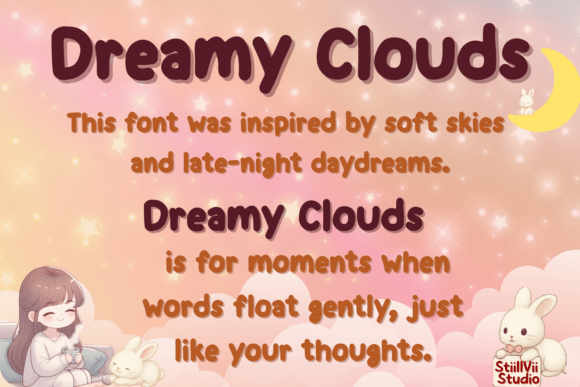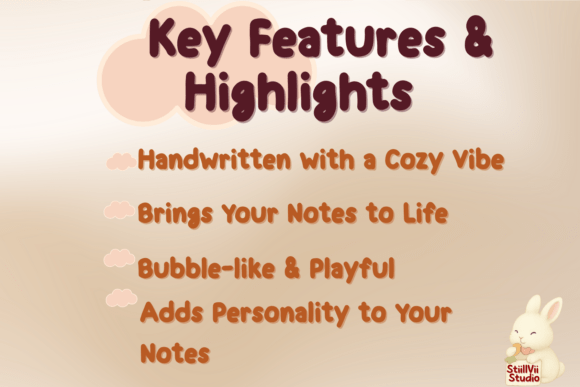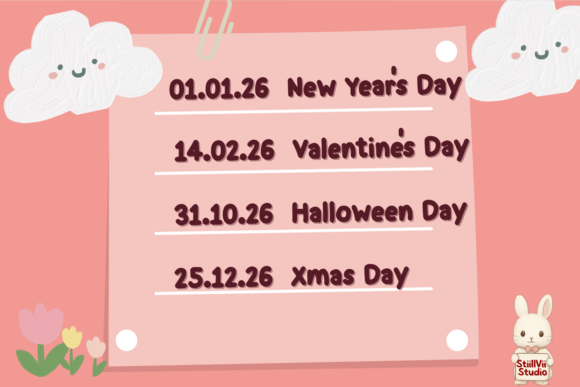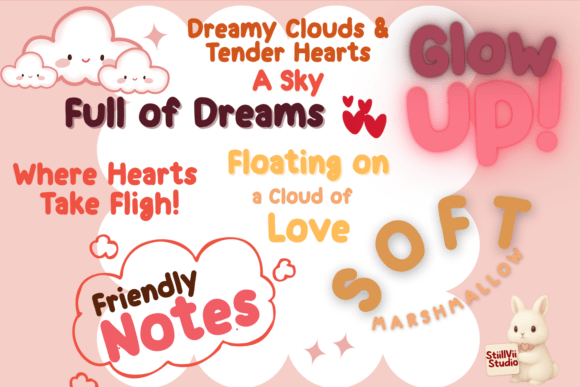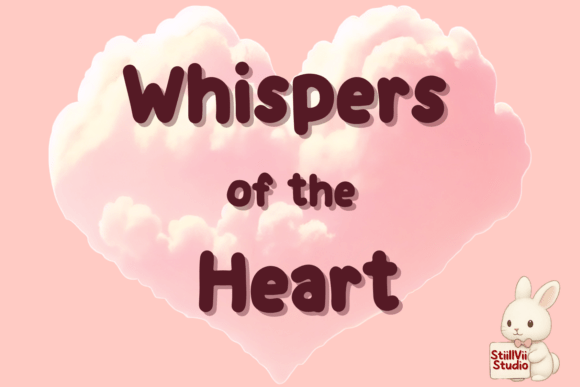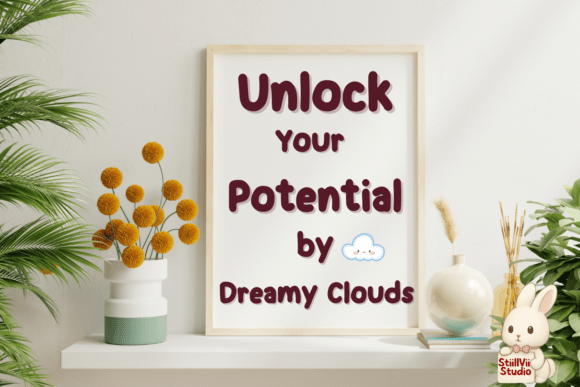
Dreamy Clouds Font: Elevate Your Designs with a Playful and Cozy Aesthetic
Are you looking for a font that can add a touch of playfulness and warmth to your digital and print projects? Look no further than Dreamy Clouds Font! This adorable handwriting font is designed to bring a friendly and cozy aesthetic to your designs, making it perfect for a wide range of applications. In this article, we’ll explore the features and benefits of Dreamy Clouds Font, and how it can elevate your designs to the next level.
What is Dreamy Clouds Font?
Dreamy Clouds Font is a cute handwriting font that is carefully crafted to bring a sense of playfulness and coziness to your designs. Its bold and rounded structure makes it an excellent choice for designs that need to stand out with a warm, human touch. Whether you’re creating GoodNotes digital planners, designing printable stickers, or crafting school worksheets, this bubble font adds a friendly personality that engages the reader.
Key Features of Dreamy Clouds Font
- Playful and Cozy Aesthetic: Dreamy Clouds Font is designed to bring a sense of playfulness and warmth to your designs, making it perfect for projects that require a friendly and approachable tone.
- Bold and Rounded Structure: The font’s bold and rounded structure makes it easy to read and adds a touch of whimsy to your designs.
- Wide Range of Applications: Dreamy Clouds Font is versatile and can be used for a wide range of applications, including GoodNotes digital planners, printable stickers, school worksheets, Cricut vinyl cuts, SVG designs, and social media graphics.
Dreamy Clouds Font is an excellent choice for designers and crafters who want to add a personal touch to their projects. Its friendly and approachable aesthetic makes it perfect for designs that require a human touch. Whether you’re creating digital planners, printable stickers, or social media graphics, this font is sure to elevate your designs and engage your audience.
Benefits of Using Dreamy Clouds Font
- Adds a Personal Touch: Dreamy Clouds Font adds a personal touch to your designs, making them more relatable and engaging.
- Easy to Read: The font’s bold and rounded structure makes it easy to read, even at small sizes.
- Versatile: Dreamy Clouds Font is versatile and can be used for a wide range of applications, from digital planners to social media graphics.
Tips for Using Dreamy Clouds Font
- Use it for Headings and Titles: Dreamy Clouds Font is perfect for headings and titles, where you want to add a touch of playfulness and whimsy.
- Pair it with Other Fonts: This font pairs well with other fonts, so feel free to experiment with different combinations to create a unique look.
- Use it for Digital and Print Projects: Dreamy Clouds Font is suitable for both digital and print projects, making it a great addition to your font library.
In conclusion, Dreamy Clouds Font is a versatile and adorable handwriting font that can add a touch of playfulness and warmth to your digital and print projects. Its bold and rounded structure makes it easy to read and adds a friendly personality that engages the reader. Whether you’re a designer or crafter, this font is sure to elevate your designs and make them more relatable and engaging. So why wait? Download Dreamy Clouds Font today and start creating stunning designs that capture the hearts of your audience!